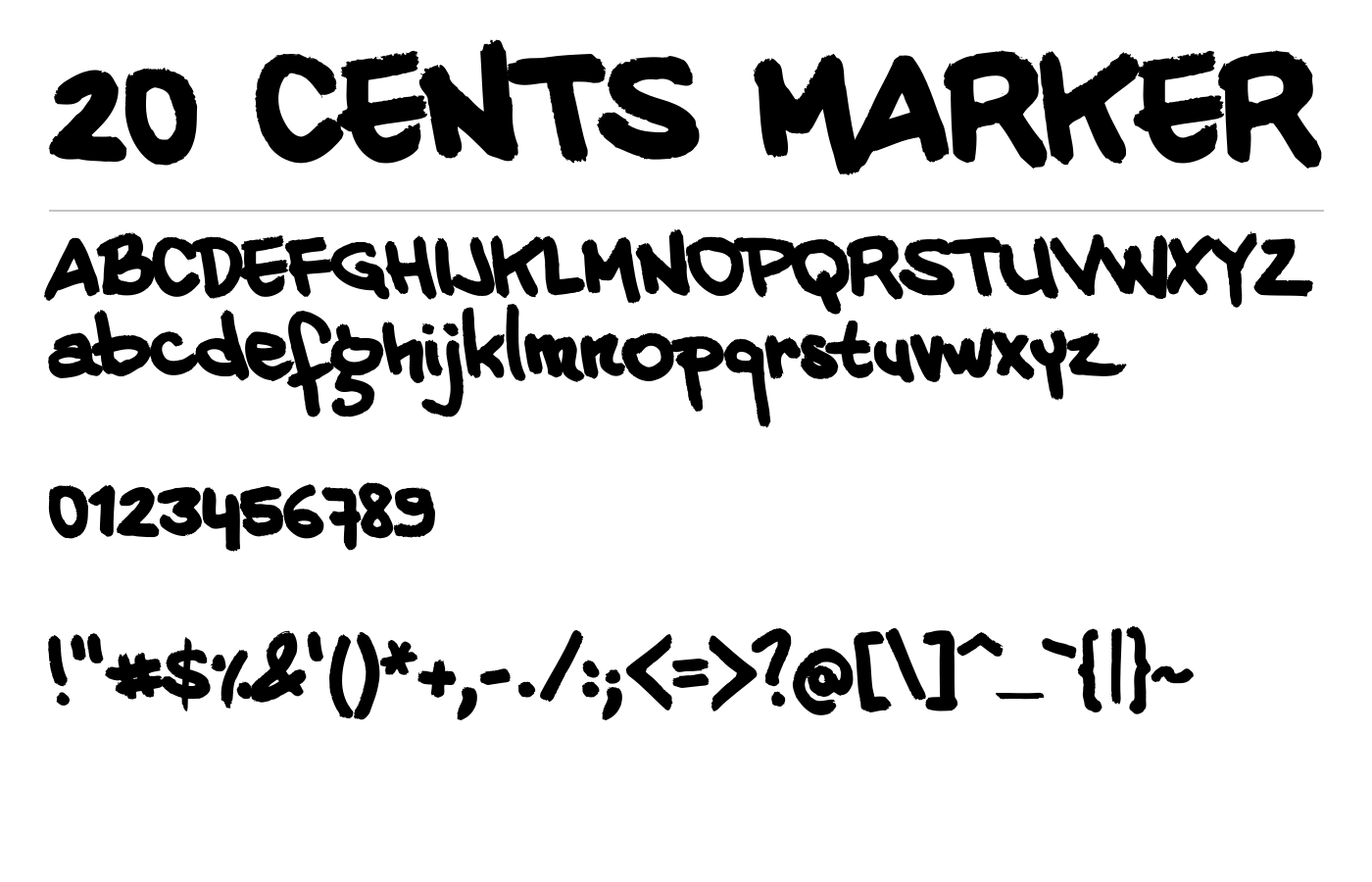
20 CENTS MARKER is a bold, casual handwritten font that mimics the uneven stroke of a thick marker pen. Its playful, irregular letterforms and strong presence make it ideal for informal designs, adding an energetic and approachable vibe. This font works best for creative logos, posters, packaging, and any project that benefits from a fun, hand-crafted feel.
20 CENTS MARKER Font
About 20 CENTS MARKER Font
| Designer | Vincent Wicky |